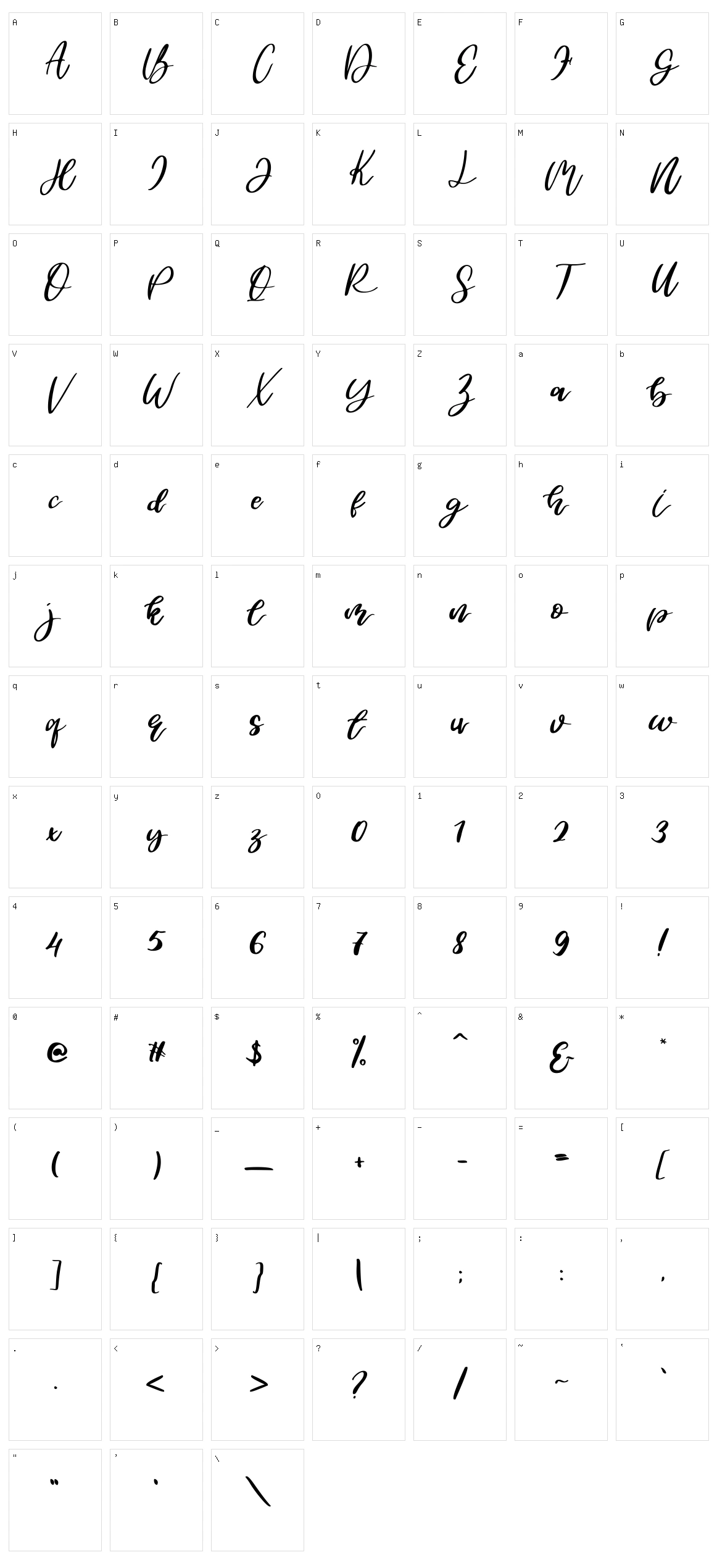
The free font Marthena Swans is carefully designed by Damn Studio, showcasing a thoughtful balance of creativity and usability and falls under the Script font style. When you download the ZIP file, it contains only 50.65 KB of font files, making it lightweight and quick to download. Please review the license details below to understand permitted usage and distribution rights. If license information is not available, we recommend using this font for personal projects only or contacting the author directly for commercial usage permissions.